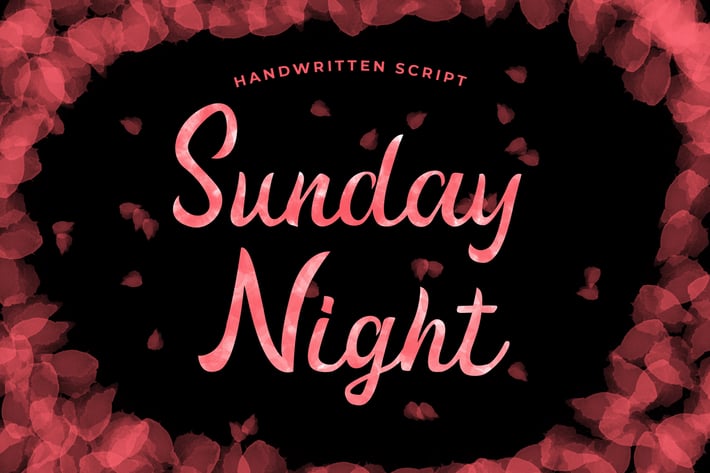
Sunday Night Handwritten Script Font
Sunday Night Handwritten Script Font is a cute hand lettering font. It has an elegant touch which is perfect for Instagram stories, natural products, branding, and much more!
Sunday Night is perfect for branding projects, logo, wedding designs, social media posts, advertisements, product packaging, tshirt design, product designs, label, photography, watermark, invitation, stationery, and any projects.